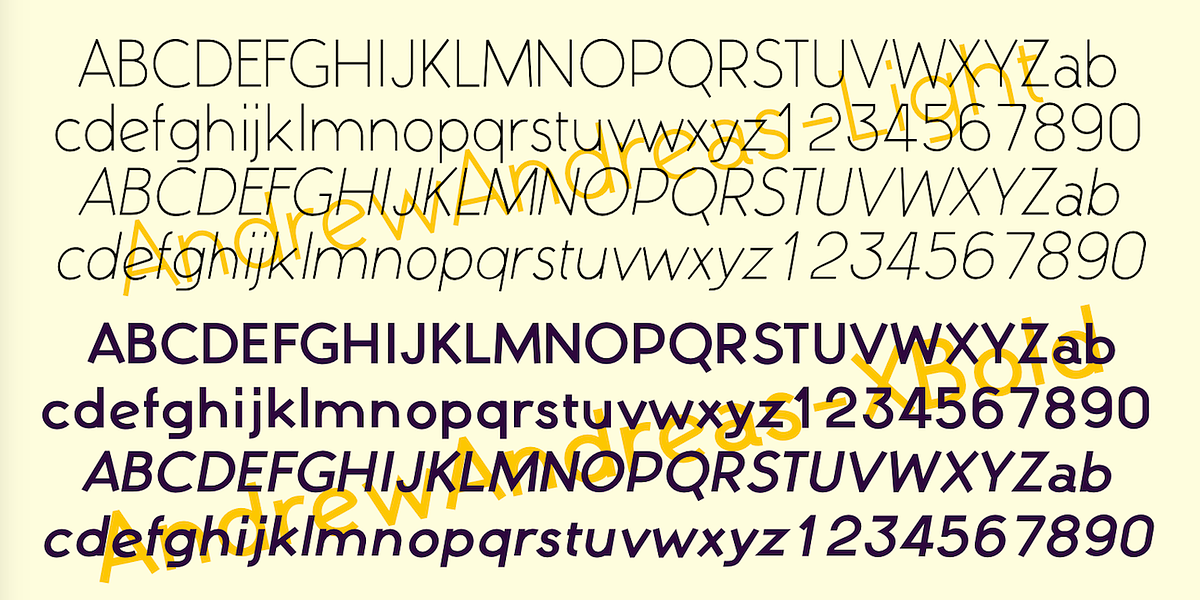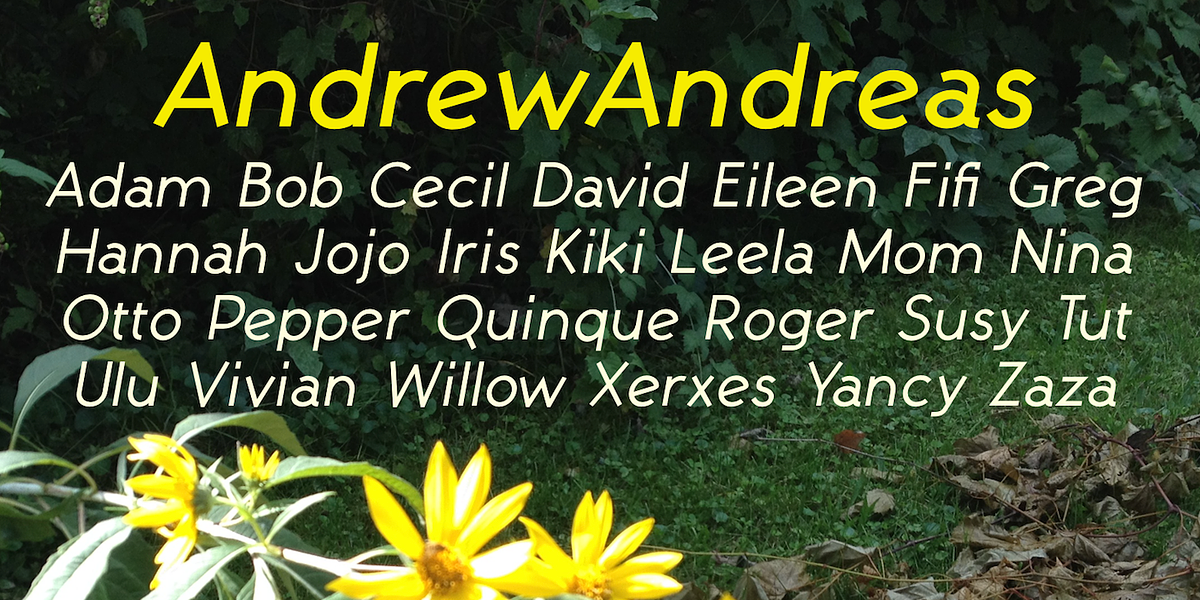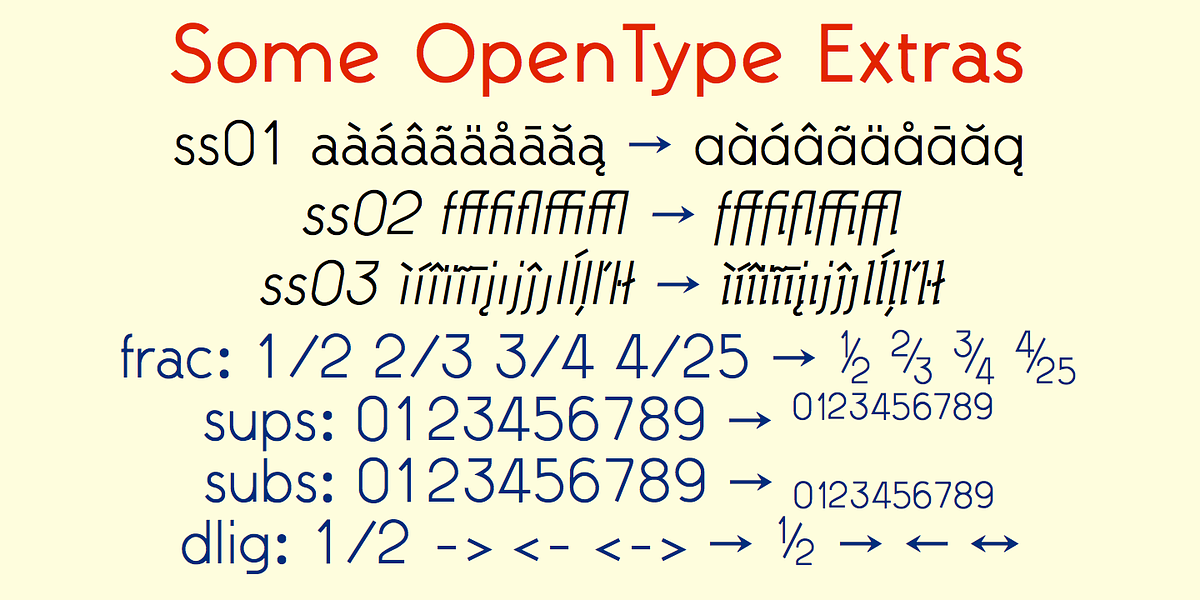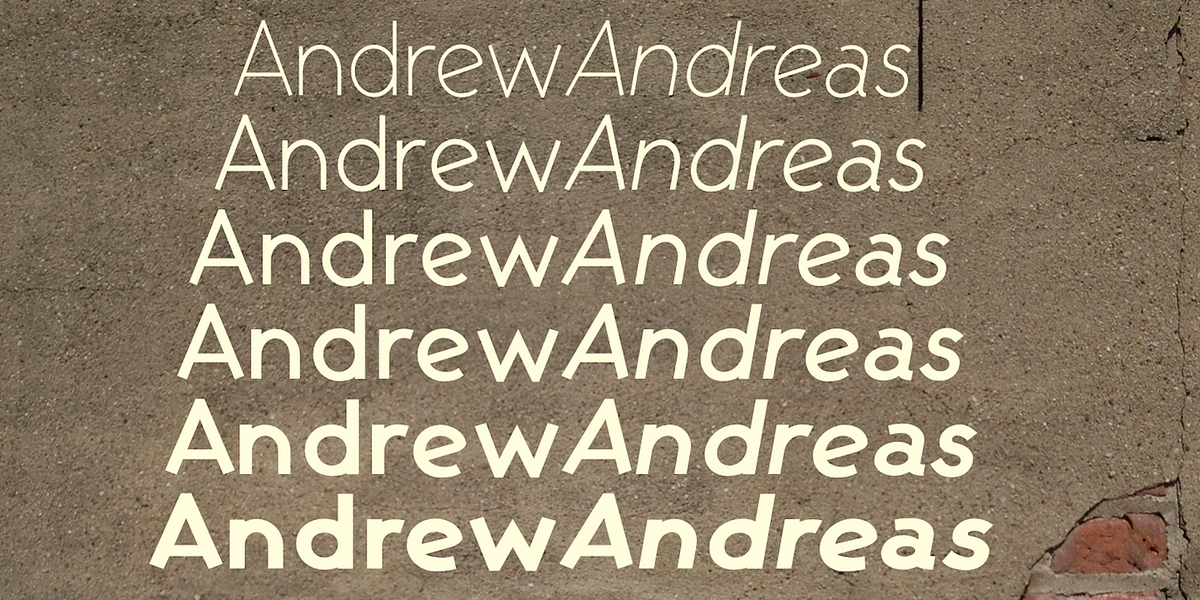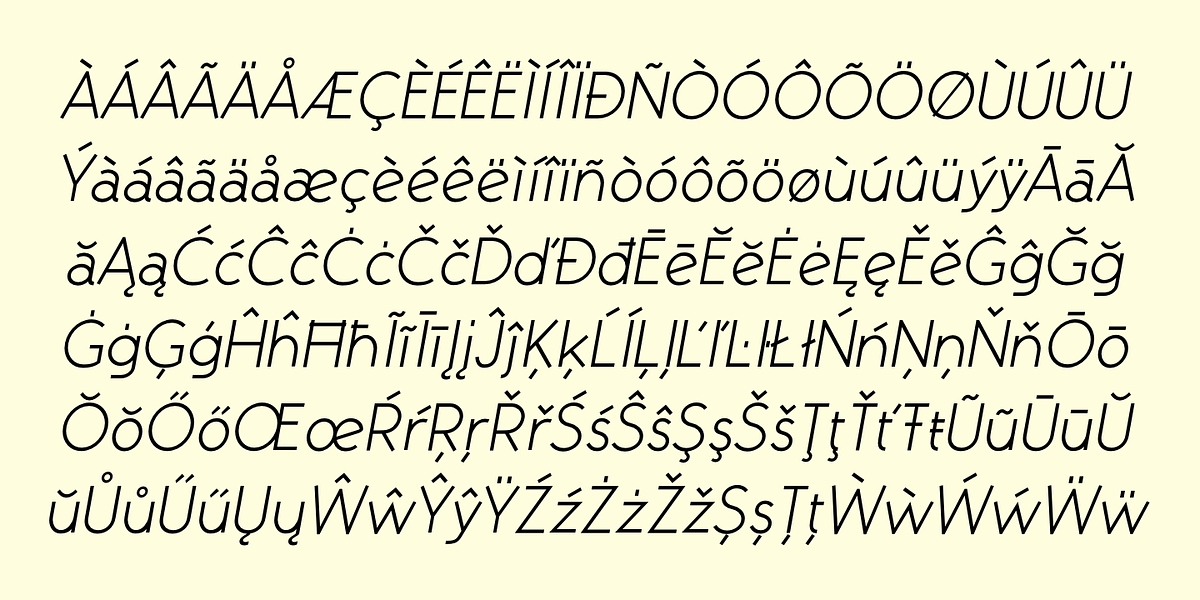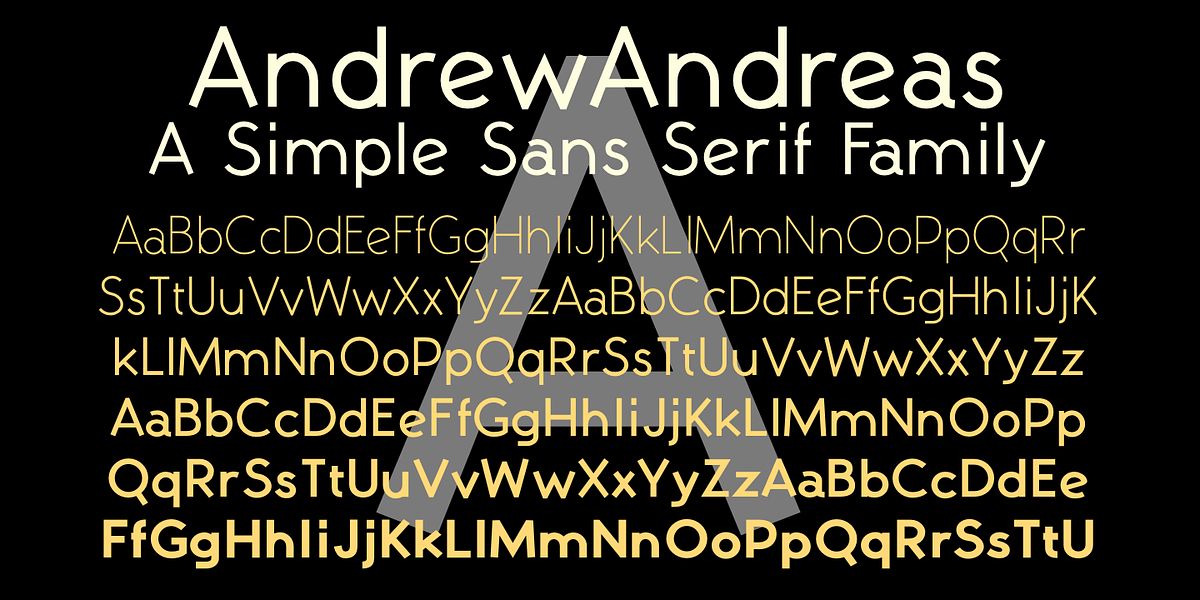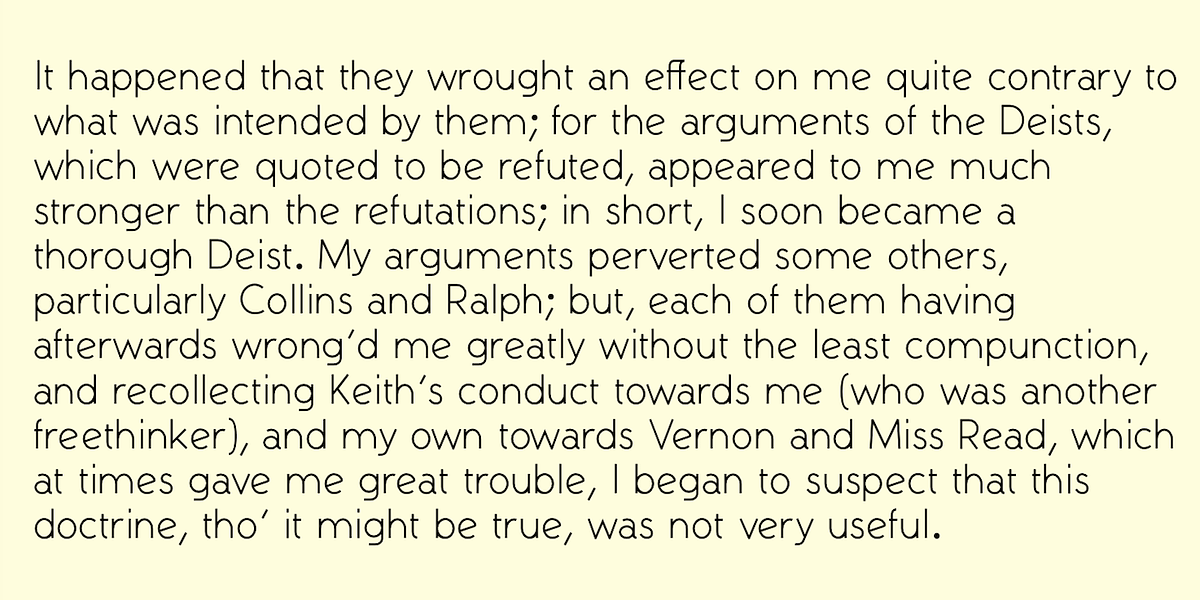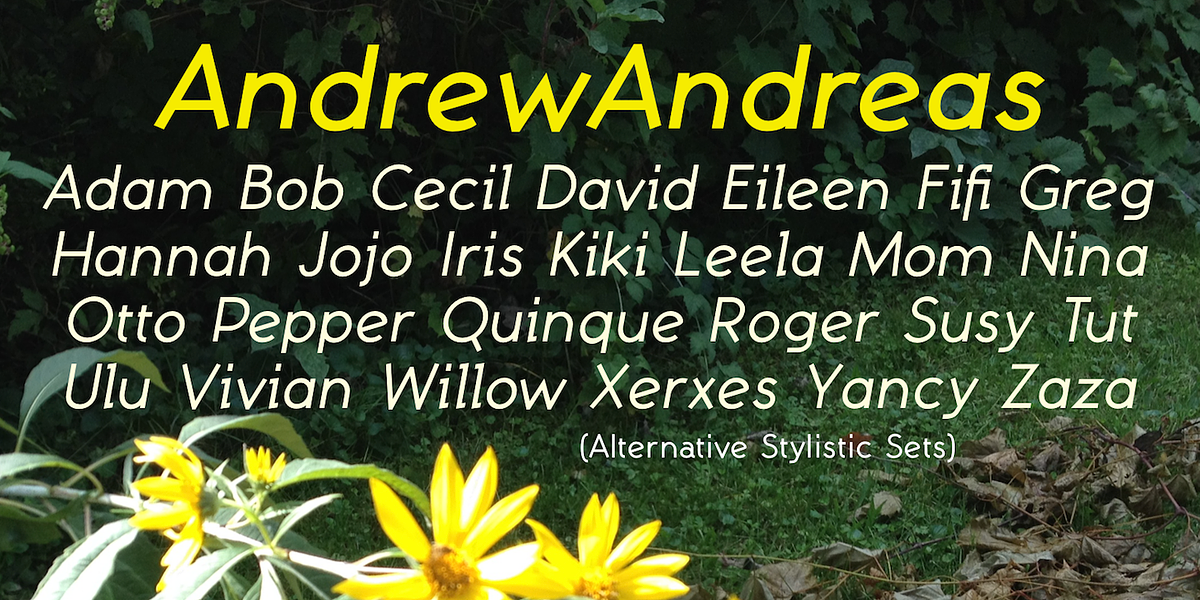
AndrewAndreas
AndrewAndreas is a versatile geometric sans-serif font designed for high legibility. It's suitable for both text and display purposes. The font family includes multiple weights and oblique styles, along with OpenType features like subscripts, superscripts, and fractions.